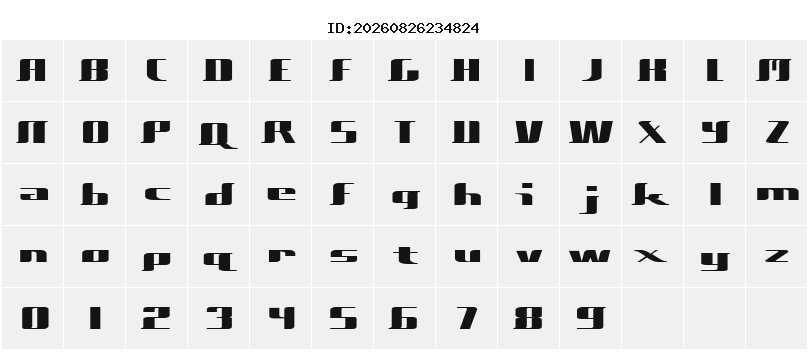
$Five Double Zero Preview
• Font Name: $Five Double Zero
• Font ID: Macromedia Fontographer 4.1 $Five Double Zero
• Full Font Name: $Five Double Zero
• Version: Macromedia Fontographer 4.1 4/15/98
• PostScript Name: FiveDoubleZero
• Character Count: 101
About $Five Double Zero.ttf
$Five Double Zero.ttf is a modern, elegant sans-serif font designed for ultimate readability and visual harmony. Perfect for branding, headlines, web design, and print materials.